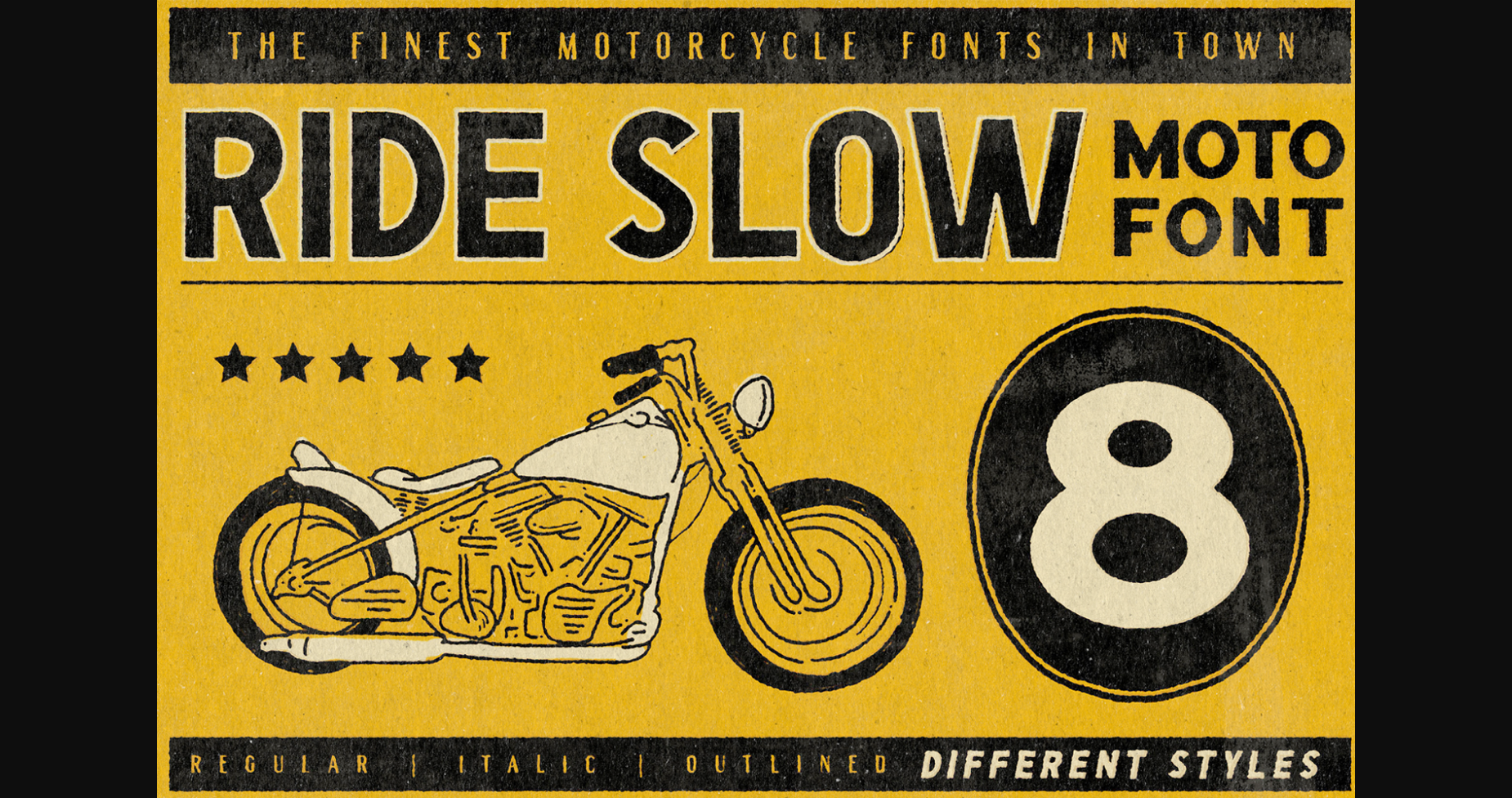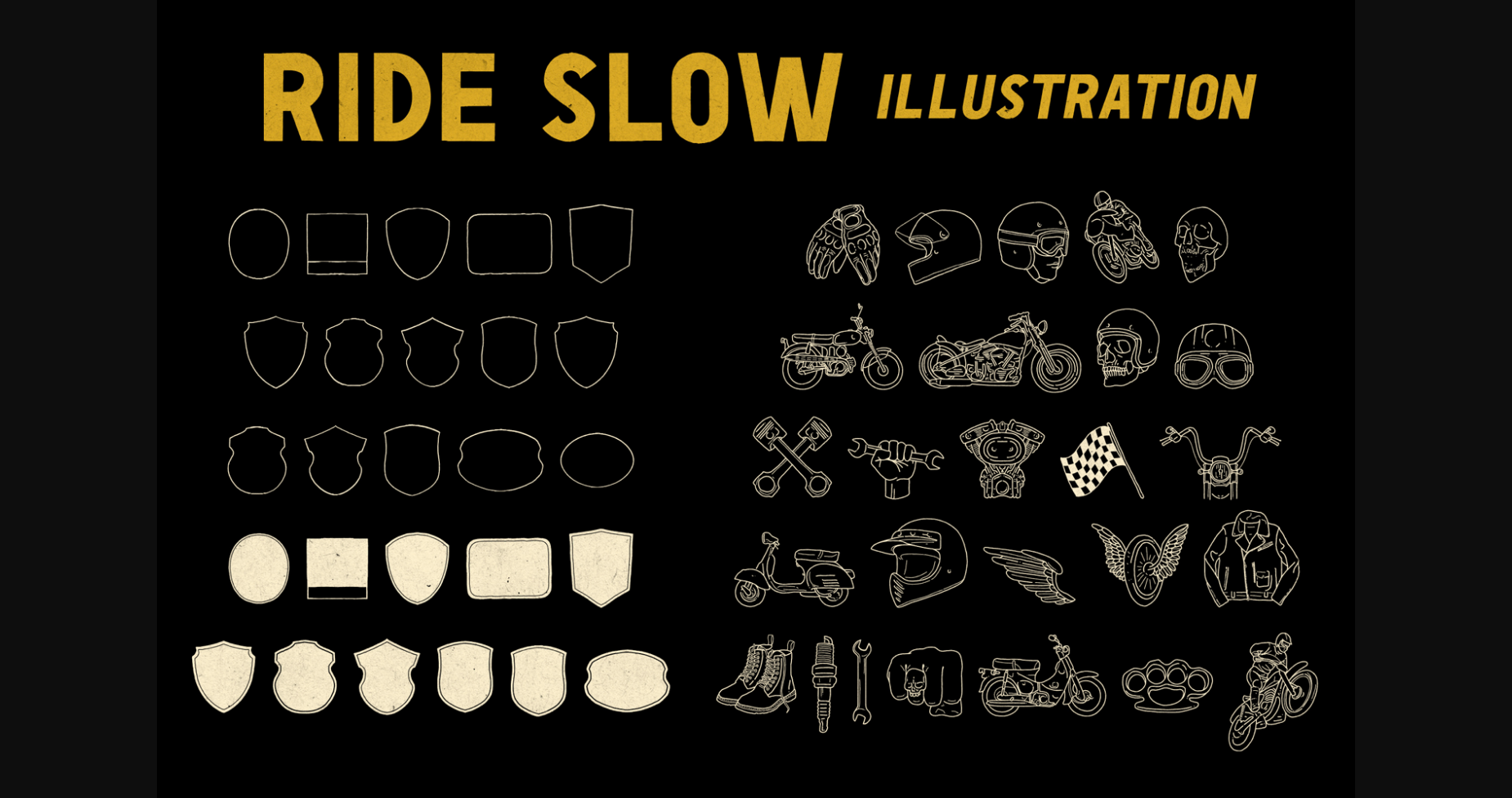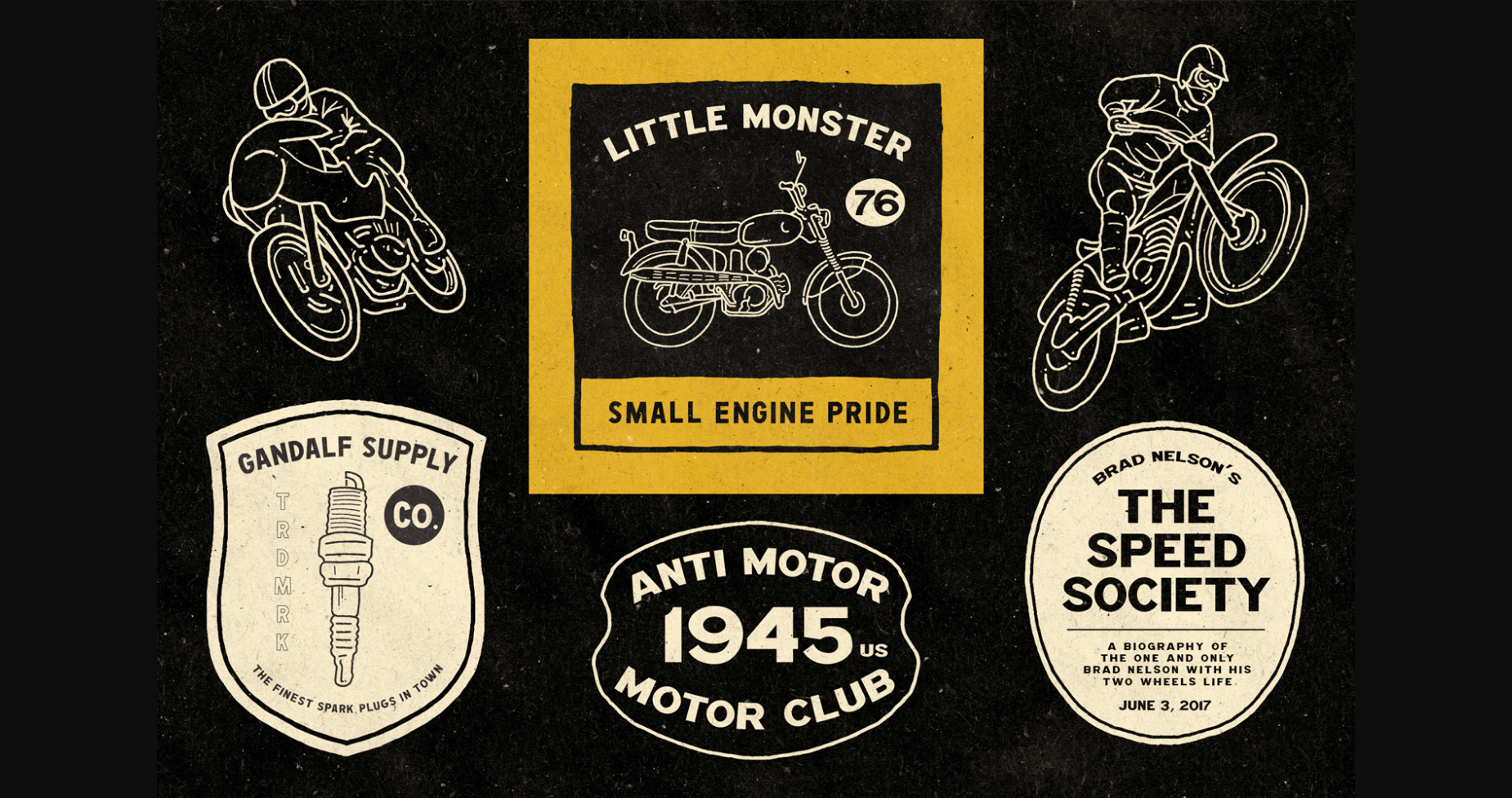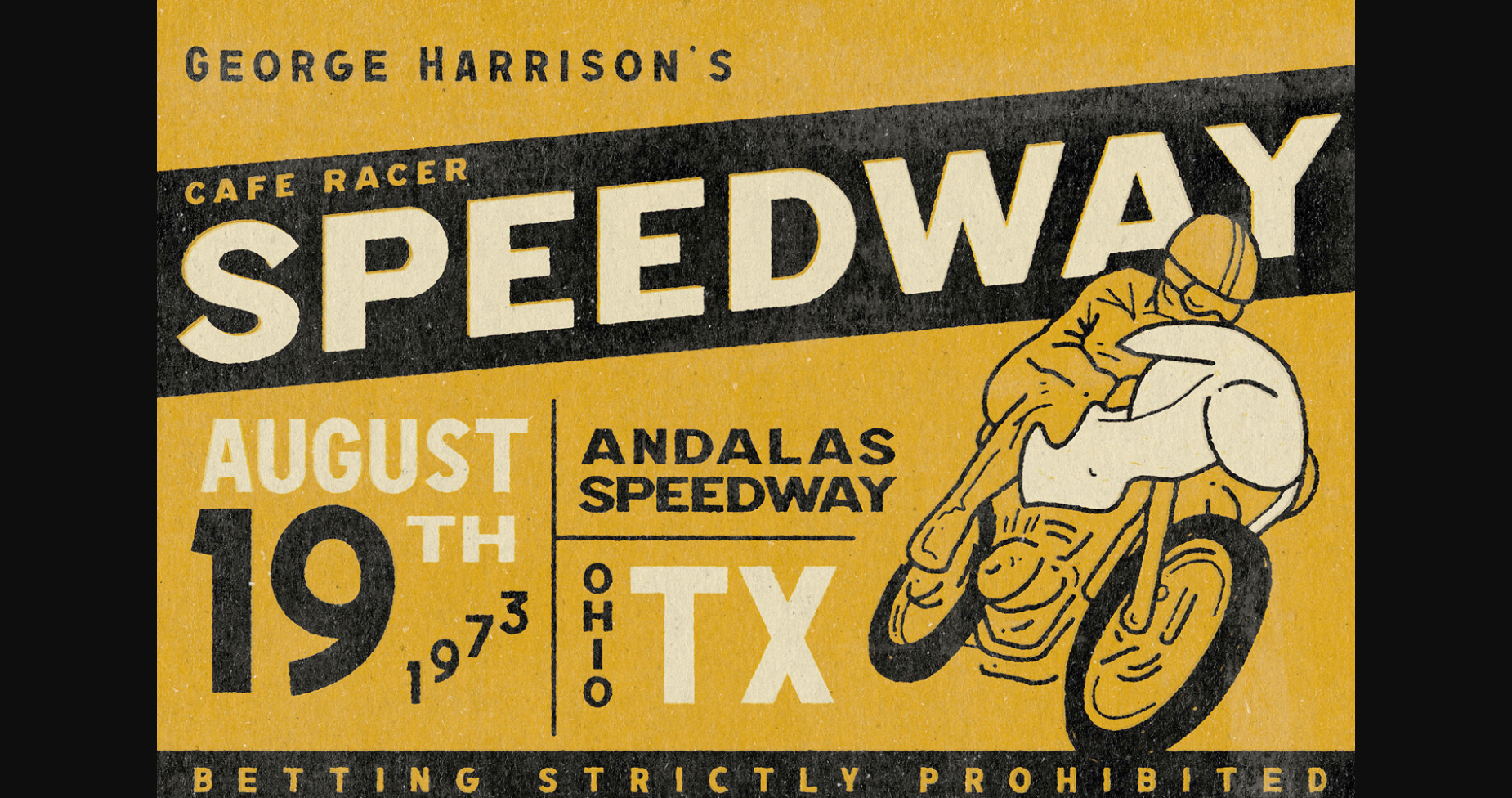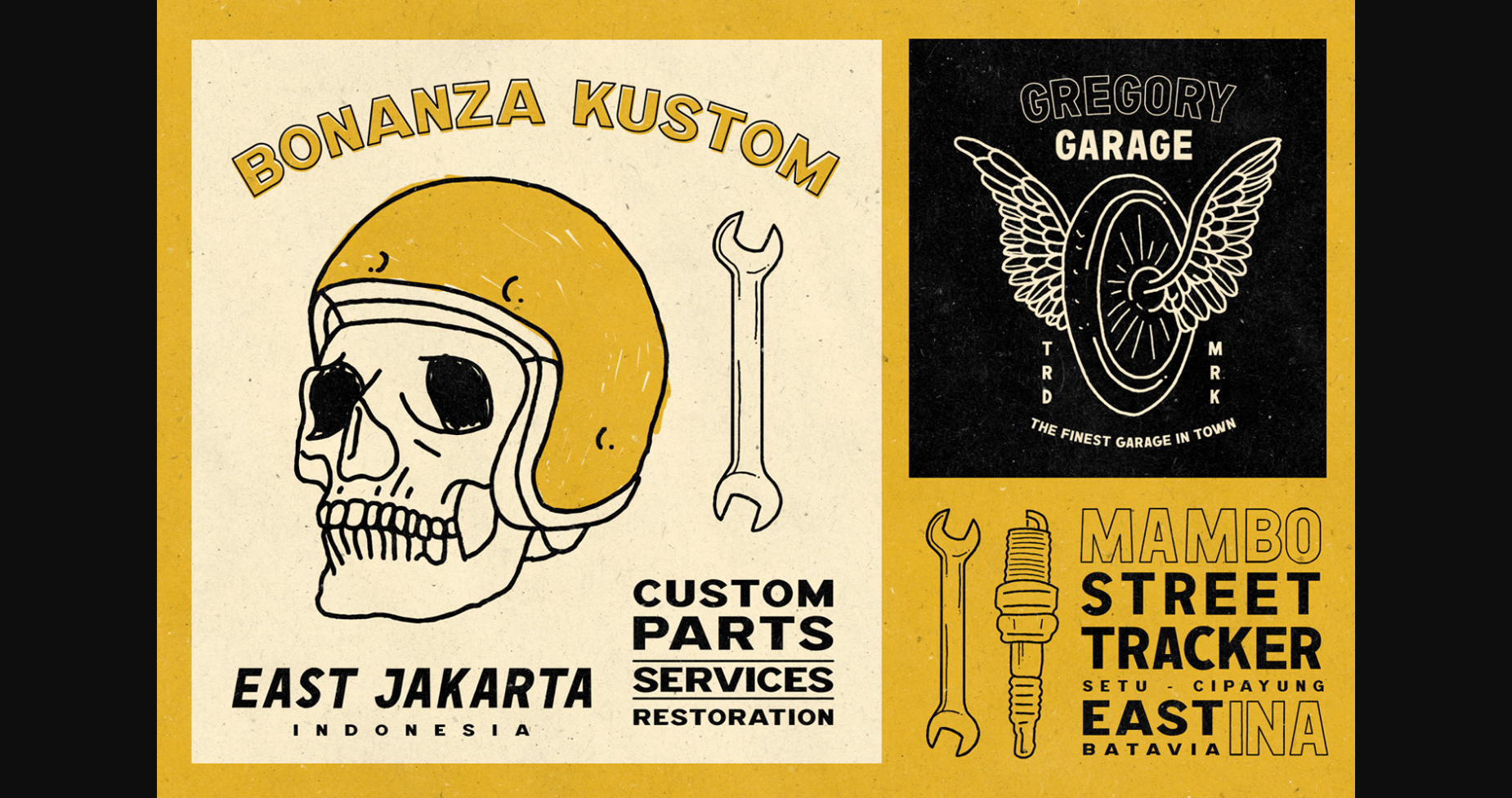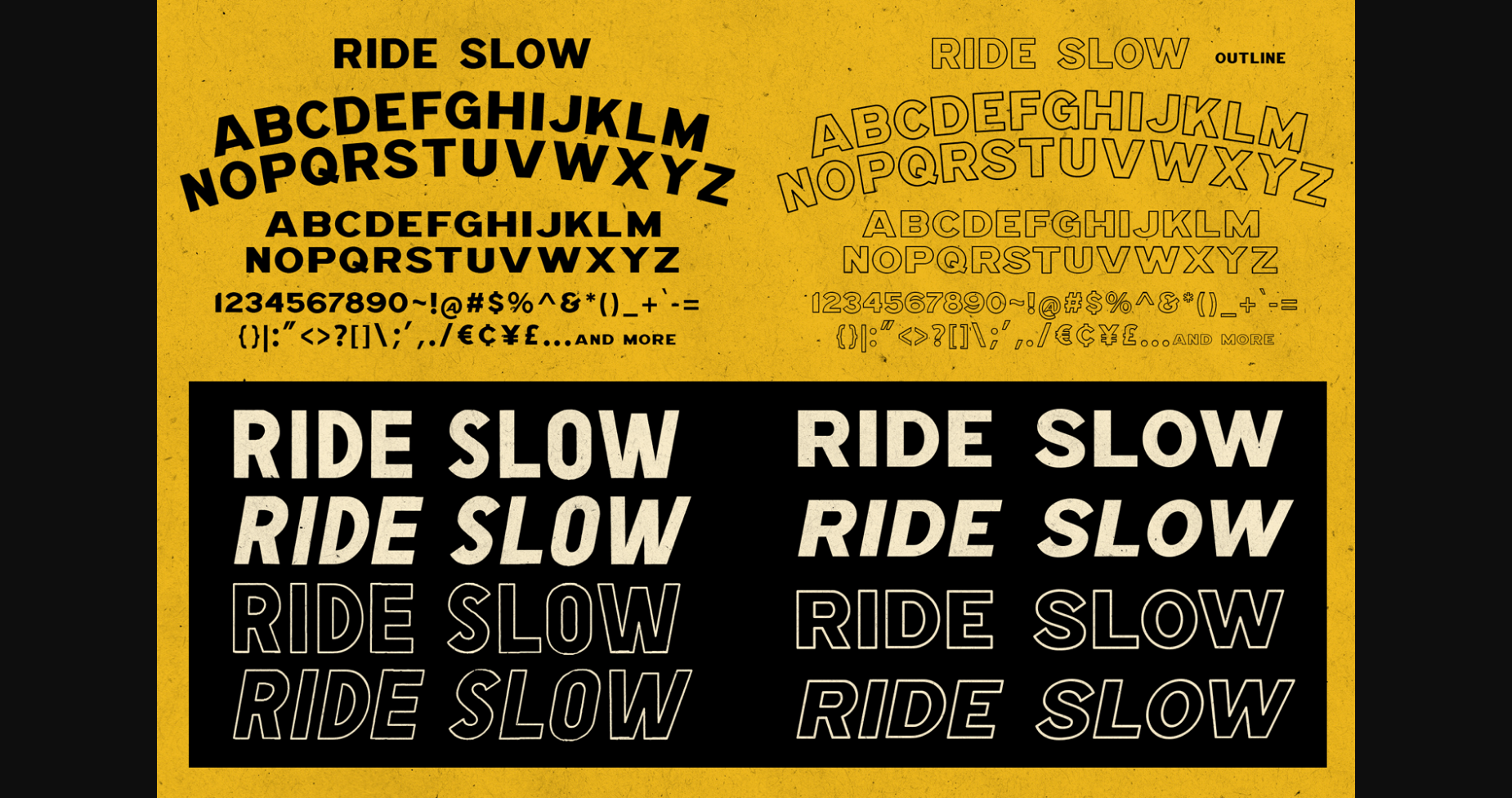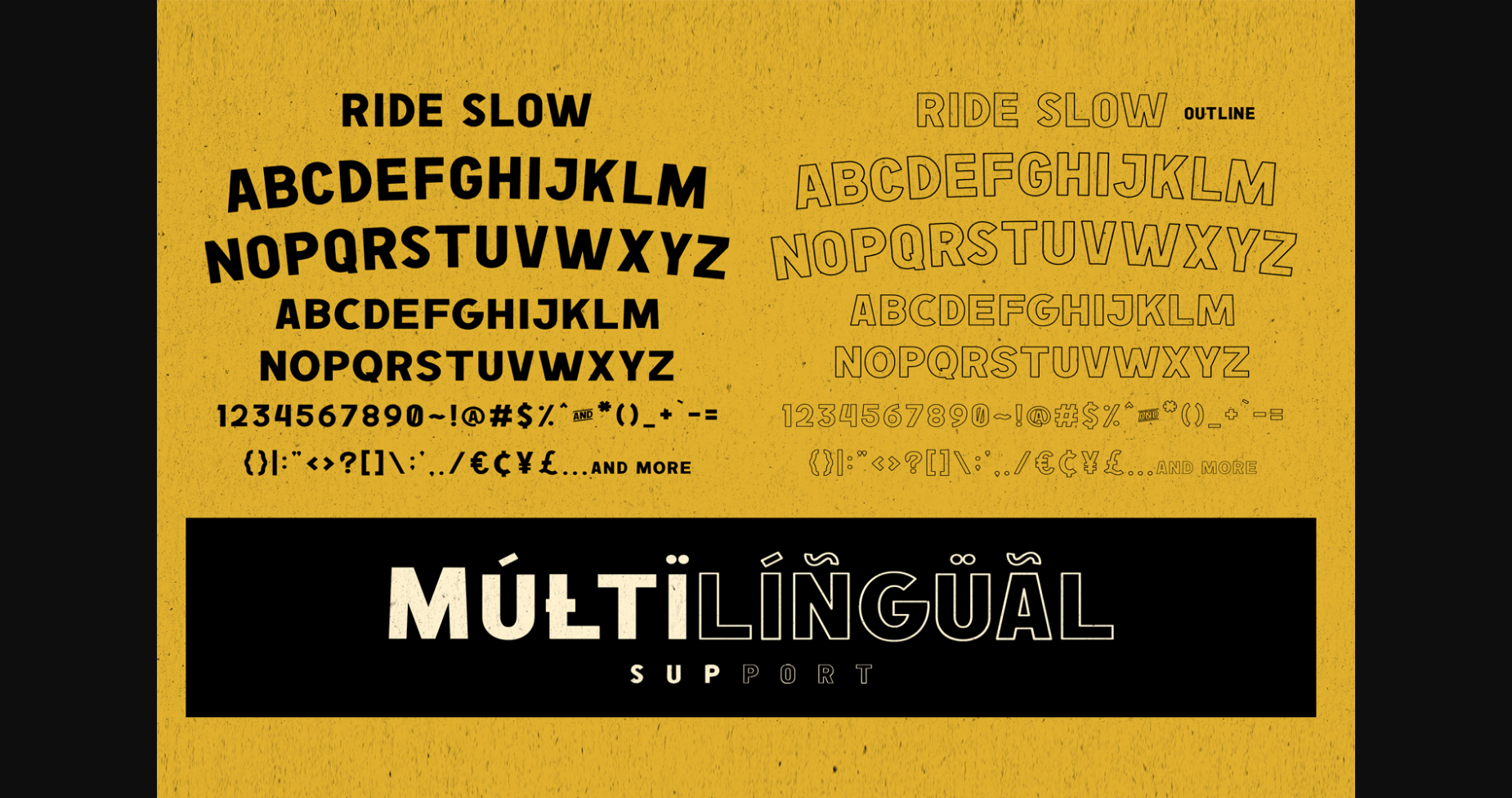
Ride Slow Font
About Ride Slow Font
Ride Slow is the perfect duo font (sans serif and dingbats), with many different styles to suit all creative needs! Inspired by the vintage motorcycle displays back in the 70s and 80s era, this duo will never disappoint!